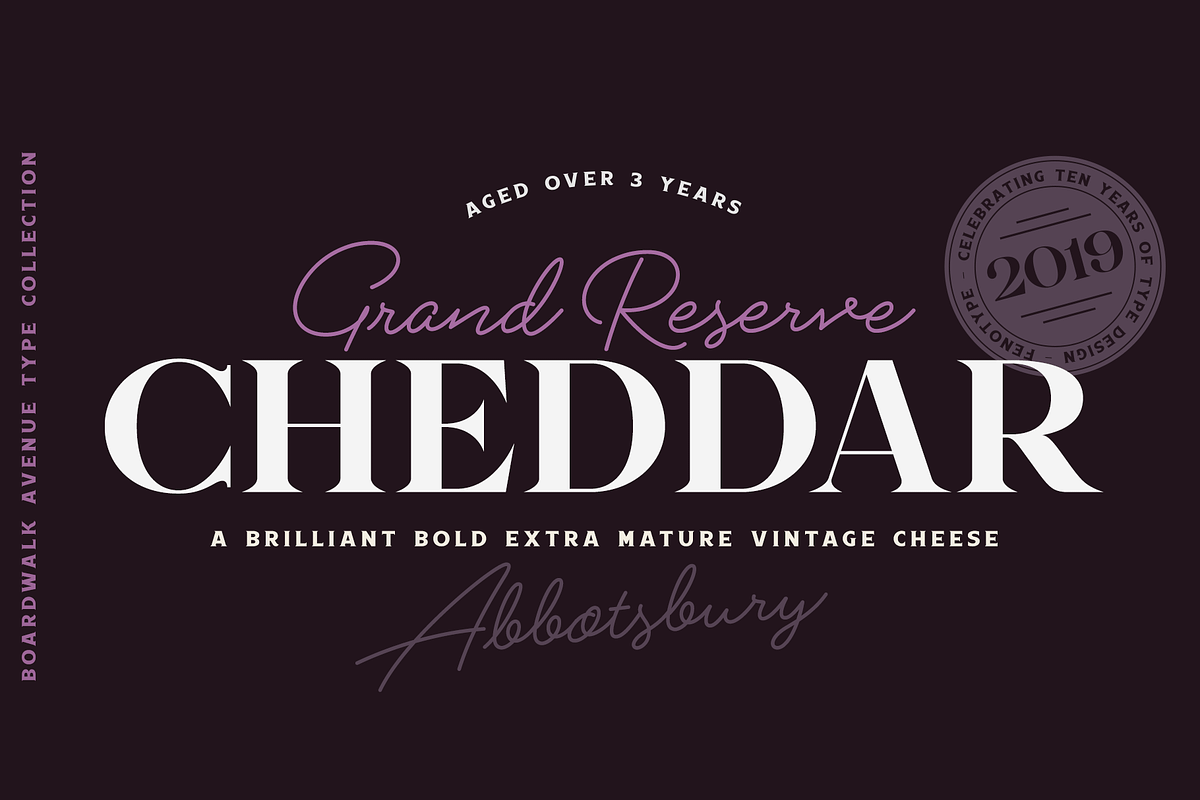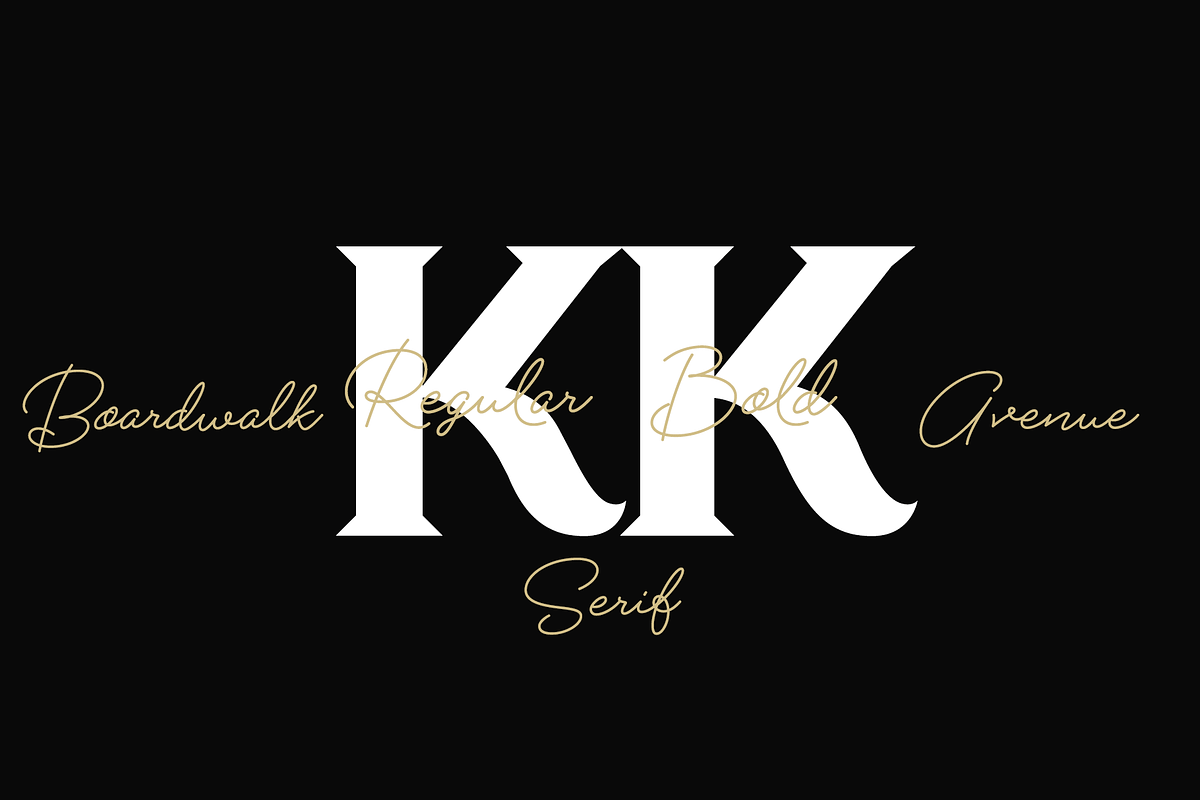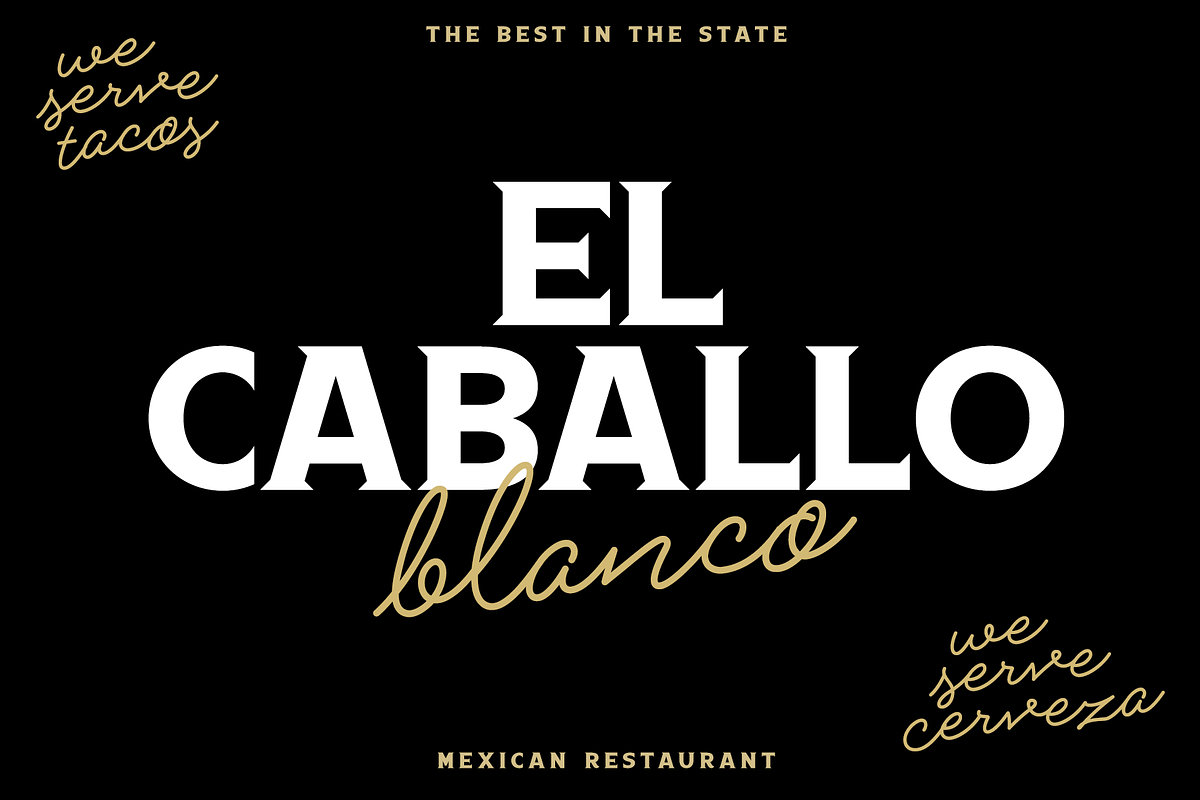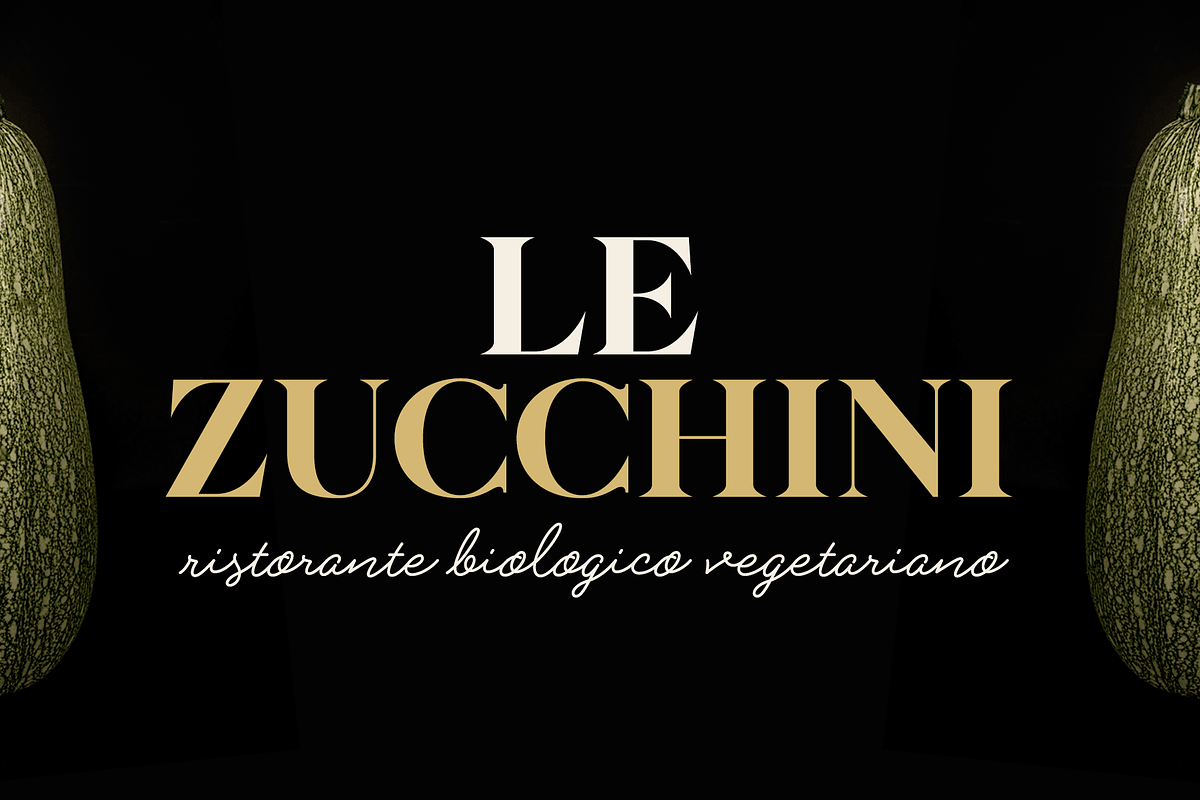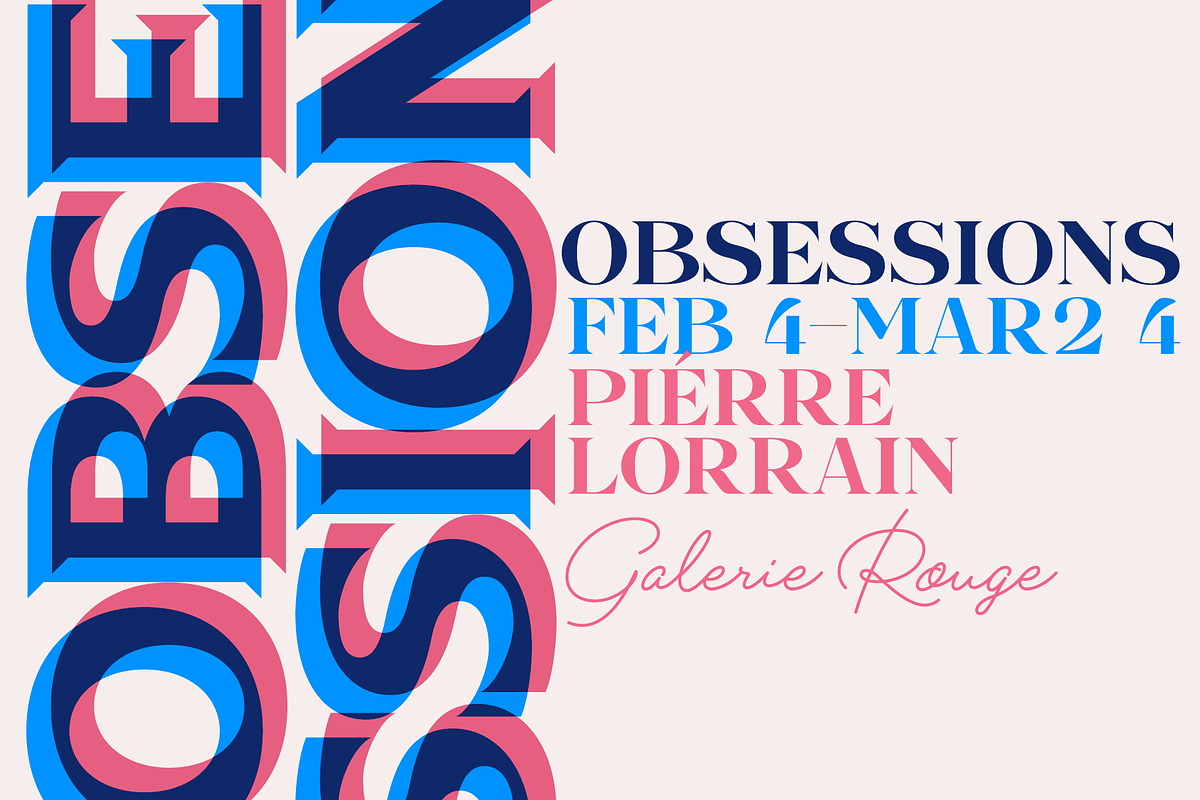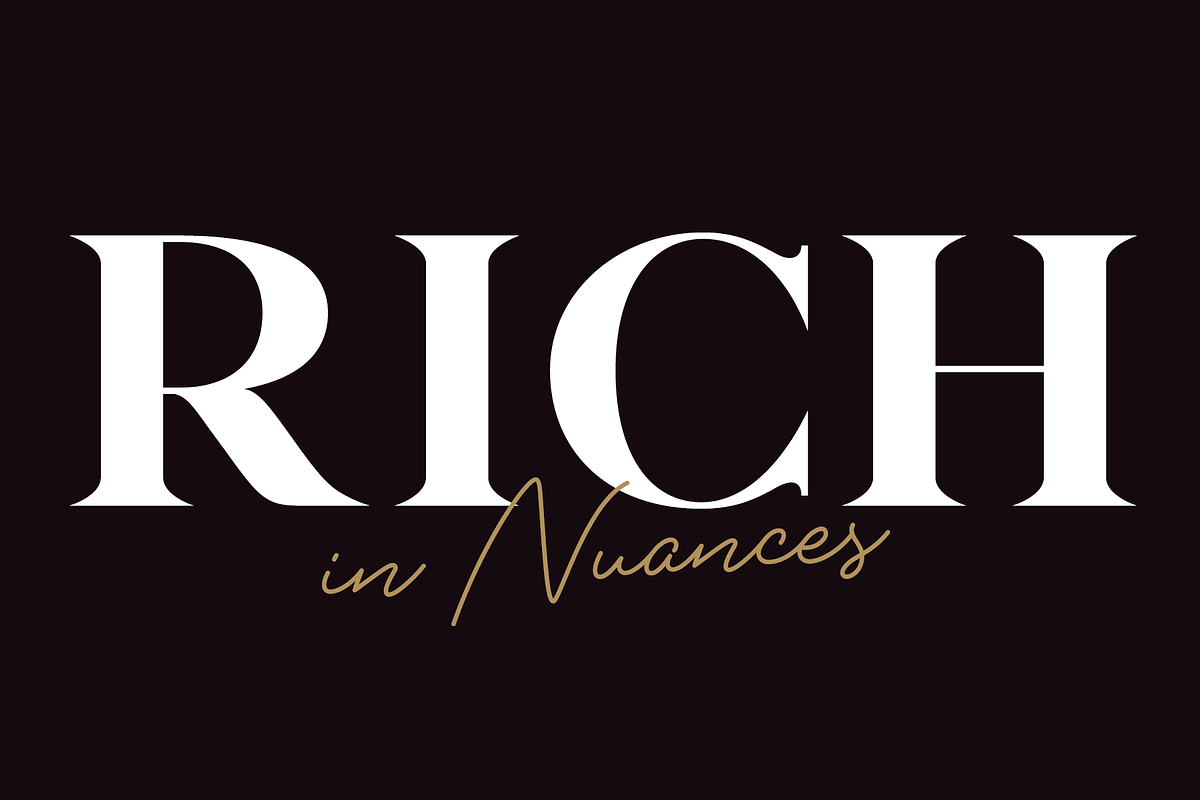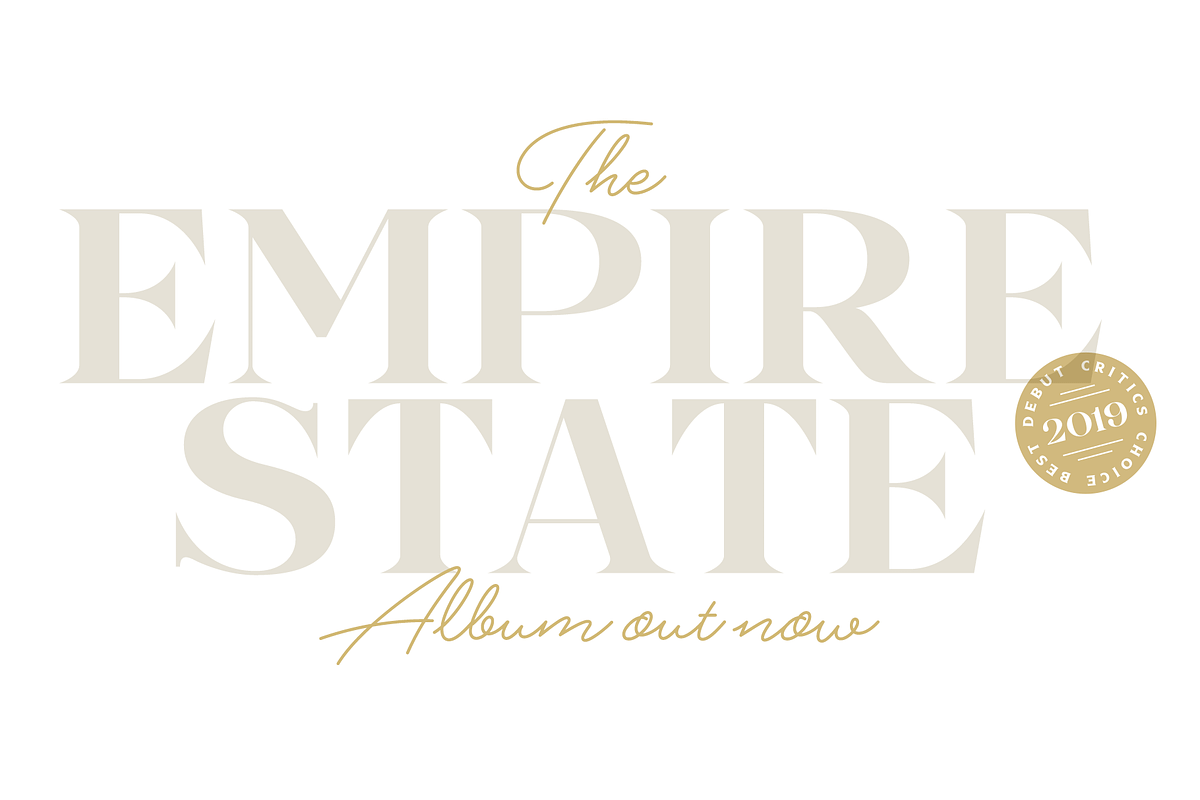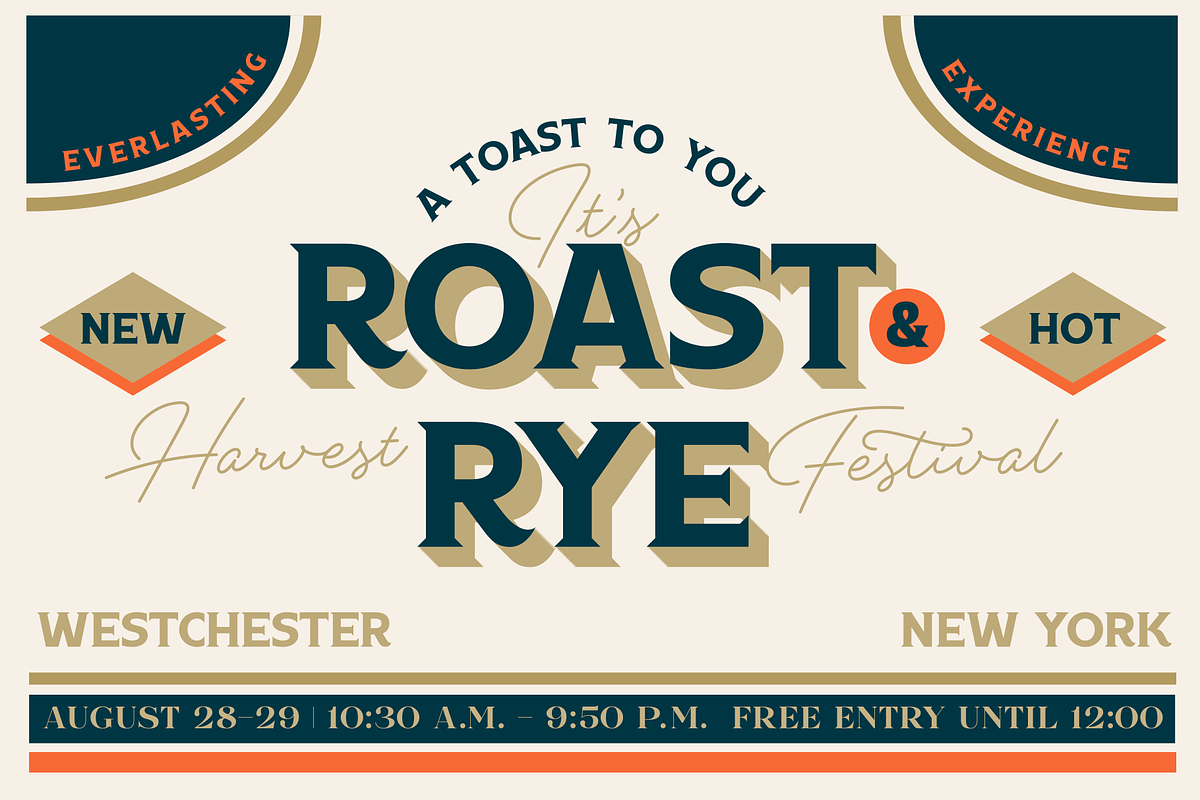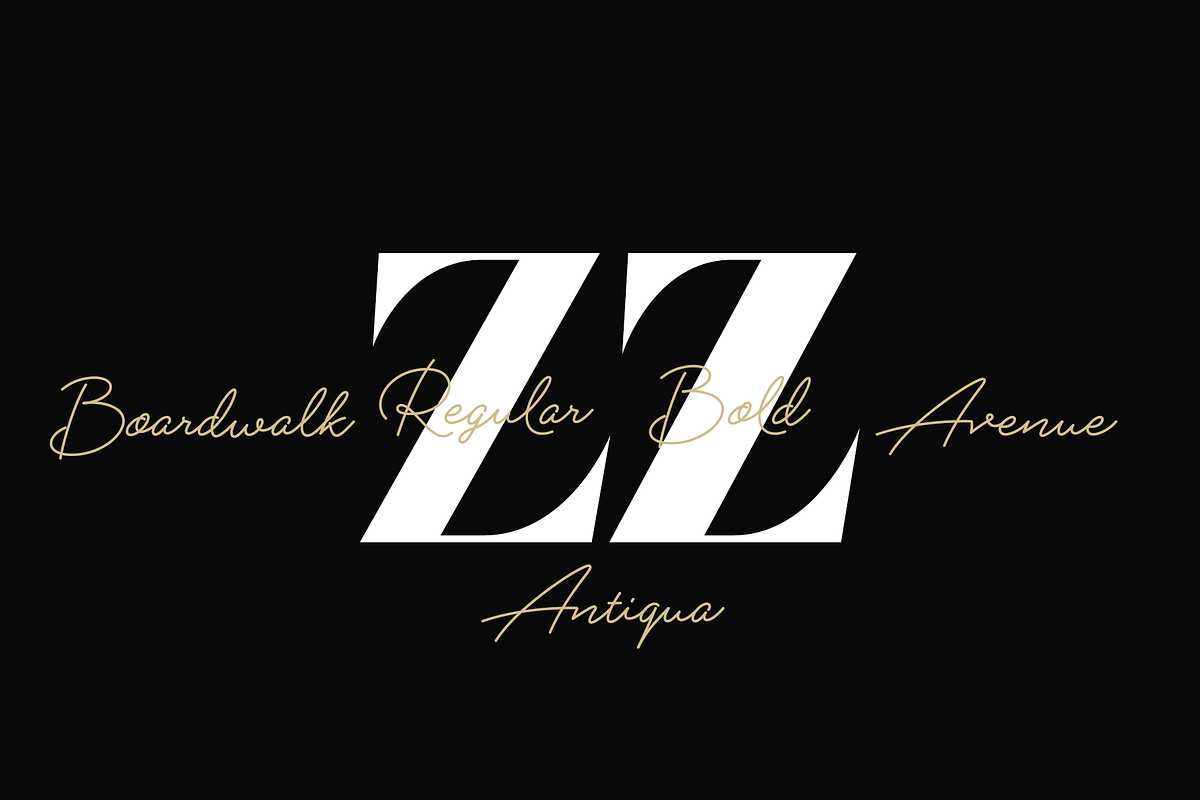
Boardwalk Avenue
Boardwalk Avenue is an elegant type collection of three styles and two weights of each. It’s divided into Boardwalk Pen, Boardwalk Antiqua and Boardwalk Serif. Boardwalk Avenue’s core is a connected mono linear script that works fantastic when paired with either of the impressive serif styles. All the fonts work great on their own but try putting them all together for a complete display font setup for a project.
Here’s a short introduction on what’s included:
- Boardwalk Avenue Pen is a connected Script. It’s great for headlines, quotes or in packaging. It has a casual hand drawn vibe to it but it’s clean and legible. It’s equipped with automatic Contextual Alternates that keep the connections smooth and versatile. For instance when you type double letter another of them will automatically change to add variation. Or if you type “i” for example, as a first letter after space or after capital letter the code will add starting point to the letter to keep the letterforms more balanced. If you need more ambitious letterforms you can try Swash or Titling Alternates -there’s alternates for every standard letter and seek for even more alternates from the glyph palette.
Boardwalk Avenue Antiqua is a high contrast serif with strong character. It’s great for glamorous headlines or as a logotype.
Boardwalk Avenue Serif is a low contrast serif with bulky character. It’s great for strong and sturdy headlines or as a logotype.